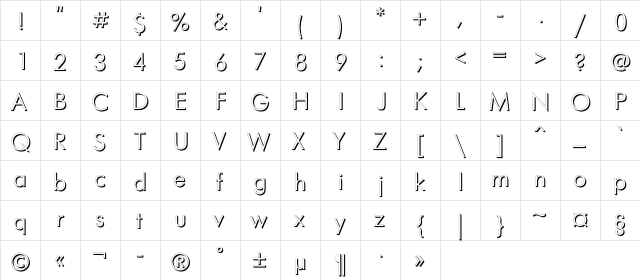
FuturaFuturisVolumeLightC Regular
Design Context for FuturaFuturisVolumeLightC Typeface
FuturaFuturisVolumeLightC channels digital-age aesthetics through its sharp, structured letterforms — ideal for brands that want to signal innovation. The delicate stroke weight brings airiness and refinement to layouts.
Pro Tip: Try FuturaFuturisVolumeLightC with generous letter-spacing in UI labels and navigation — the geometric forms benefit from room to breathe.